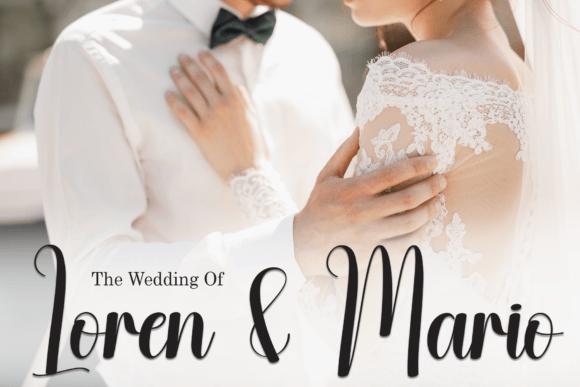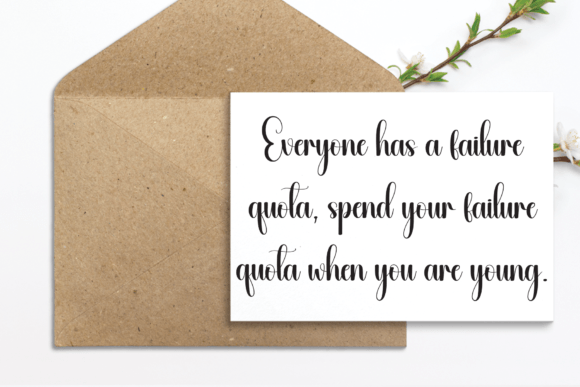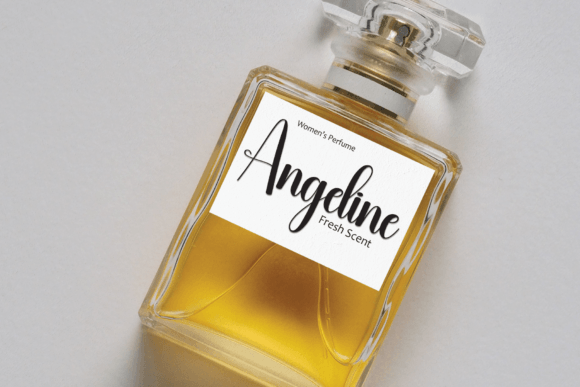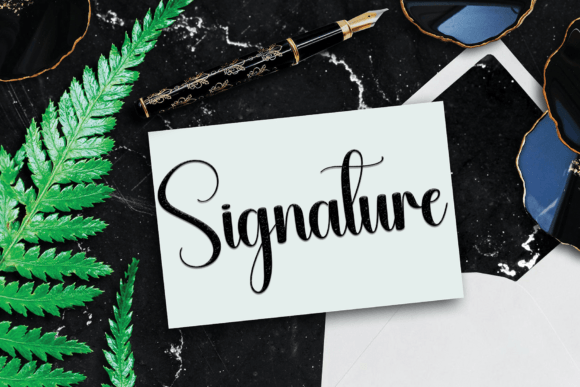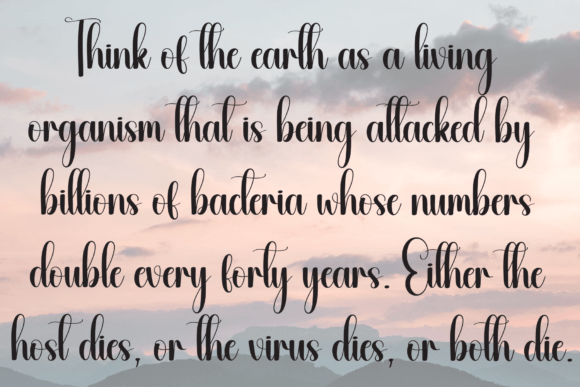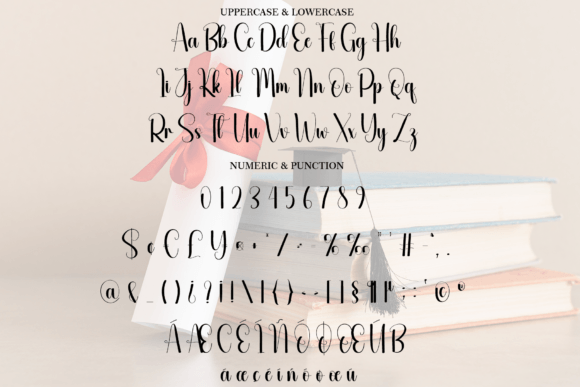
Introducing Certificate Font: The Sweet and Friendly Handwritten Font for Your Design Needs
Are you a designer or crafter looking for a font that can add a personal touch to your designs? Look no further than Certificate font, a sweet and friendly handwritten font that’s perfect for creating beautiful wedding invitations, cards, and other designs that require a lovely touch.
What Makes Certificate Font Special?
Certificate font is a fresh and casual font that’s designed to bring a sense of warmth and personality to your designs. Its handwritten style gives it a unique and organic feel that’s perfect for creating designs that are both elegant and approachable.
One of the standout features of Certificate font is its versatility. Whether you’re designing a wedding invitation, a greeting card, or a social media graphic, this font is sure to impress. Its clean lines and simple design make it easy to read, while its friendly tone adds a touch of personality to your designs.
Why Choose Certificate Font for Your Designs?
There are many reasons why Certificate font is an excellent choice for designers and crafters. Here are just a few:
- Perfect for wedding designs: Certificate font is ideal for creating beautiful wedding invitations, save-the-date cards, and other wedding-related designs. Its elegant and sophisticated style is sure to impress your clients and their guests.
- Great for card designs: Whether you’re designing birthday cards, thank-you cards, or holiday cards, Certificate font is a great choice. Its friendly tone and casual style make it perfect for creating cards that are both personal and heartfelt.
- Easy to read: Certificate font is designed to be easy to read, even at small sizes. This makes it perfect for creating designs that require a lot of text, such as brochures, flyers, and social media graphics.
- Highly versatile: Certificate font can be used for a wide range of design projects, from digital designs to print materials. Its flexibility makes it a great addition to any designer’s toolkit.
Tips for Using Certificate Font in Your Designs
Here are a few tips for getting the most out of Certificate font in your designs:
- Pair it with other fonts: Certificate font pairs well with a variety of other fonts, including serif and sans-serif fonts. Experiment with different font combinations to find the perfect look for your design.
- Use it for headings and titles: Certificate font is perfect for creating headings and titles that are both elegant and eye-catching. Use it to add a touch of personality to your designs.
- Experiment with colors: Certificate font looks great in a variety of colors, from bright and bold to soft and pastel. Experiment with different colors to find the perfect look for your design.
Certificate font is a sweet and friendly handwritten font that’s perfect for designers and crafters who want to add a personal touch to their designs. Its versatility, elegance, and friendly tone make it an excellent choice for a wide range of design projects, from wedding invitations to social media graphics.
Whether you’re a seasoned designer or just starting out, Certificate font is a great addition to any designer’s toolkit. So why not give it a try and see how it can elevate your designs to the next level?
Example of Certificate font in use.
- Is Certificate font suitable for digital designs? Yes, Certificate font is perfect for digital designs, including social media graphics, email newsletters, and website headers.
By incorporating Certificate font into your designs, you’ll be able to add a touch of personality and elegance that’s sure to impress your clients and their audience.